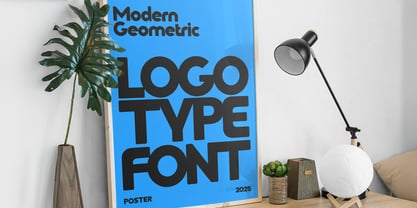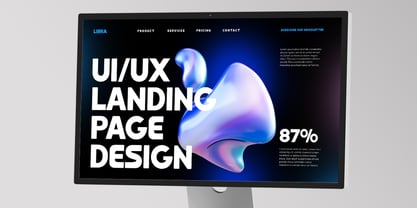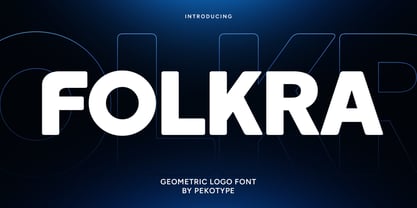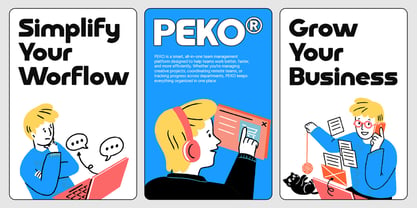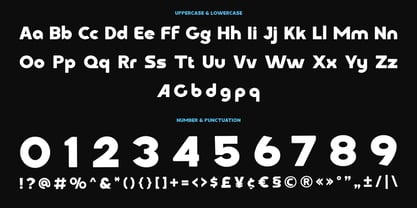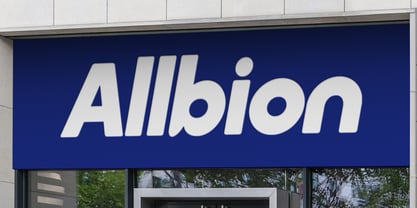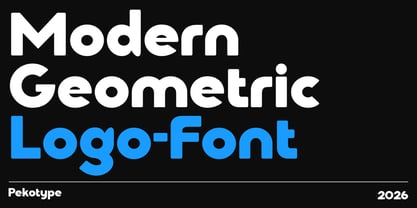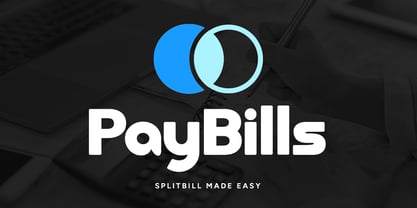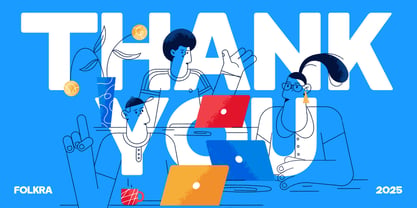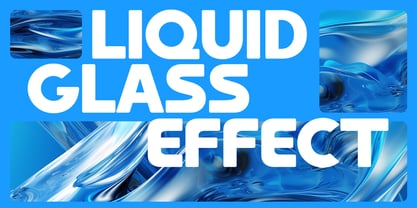
Folkra
The Folkra Font Family was designed by Galang Bryan and published by Pekotype. Folkra contains 1 styles. More about this family
Introducing FOLKRA, a modern geometric logo font with clean lines, rounded corners, and a minimalist style. Designed for logos, branding, packaging, signage, and social media, it delivers a bold yet refined look across both digital and print projects. Perfect for startups, tech brands, and contemporary visual identities, FOLKRA brings a professional and timeless touch to any design.